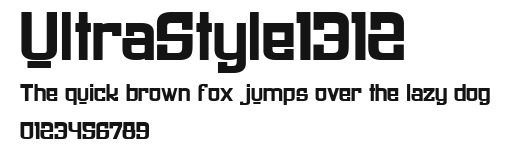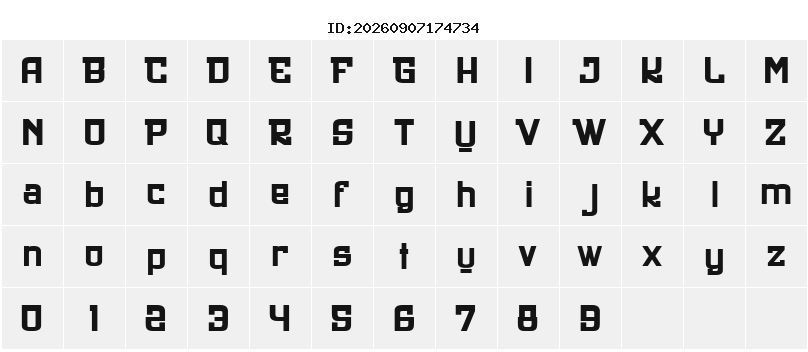
UltraStyle1312 Preview
• Font Name: UltraStyle1312
• Full Font Name: UltraStyle1312
• PostScript Name: UltraStyle1312
• Designer: Jaime Ignacio Compeán Dolphyn
About UltraStyle1312.ttf
UltraStyle1312.ttf is a modern, elegant sans-serif font designed for ultimate readability and visual harmony. Perfect for branding, headlines, web design, and print materials.